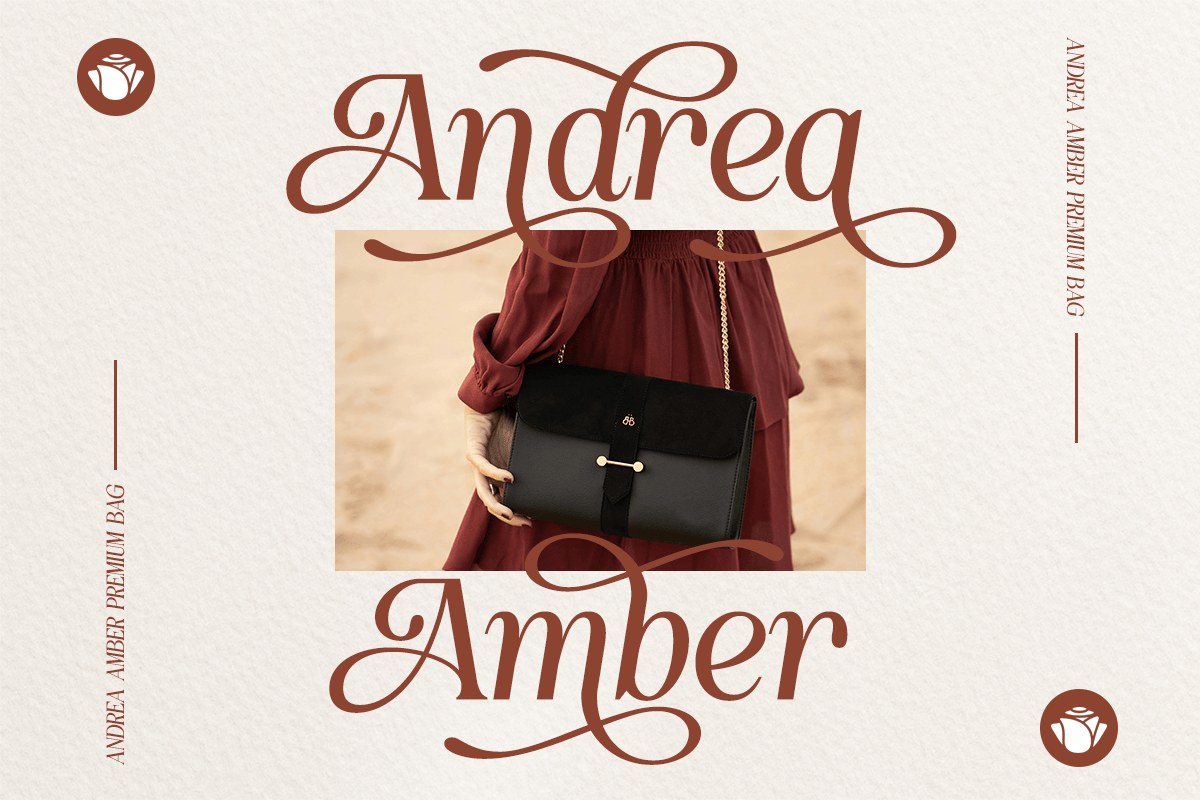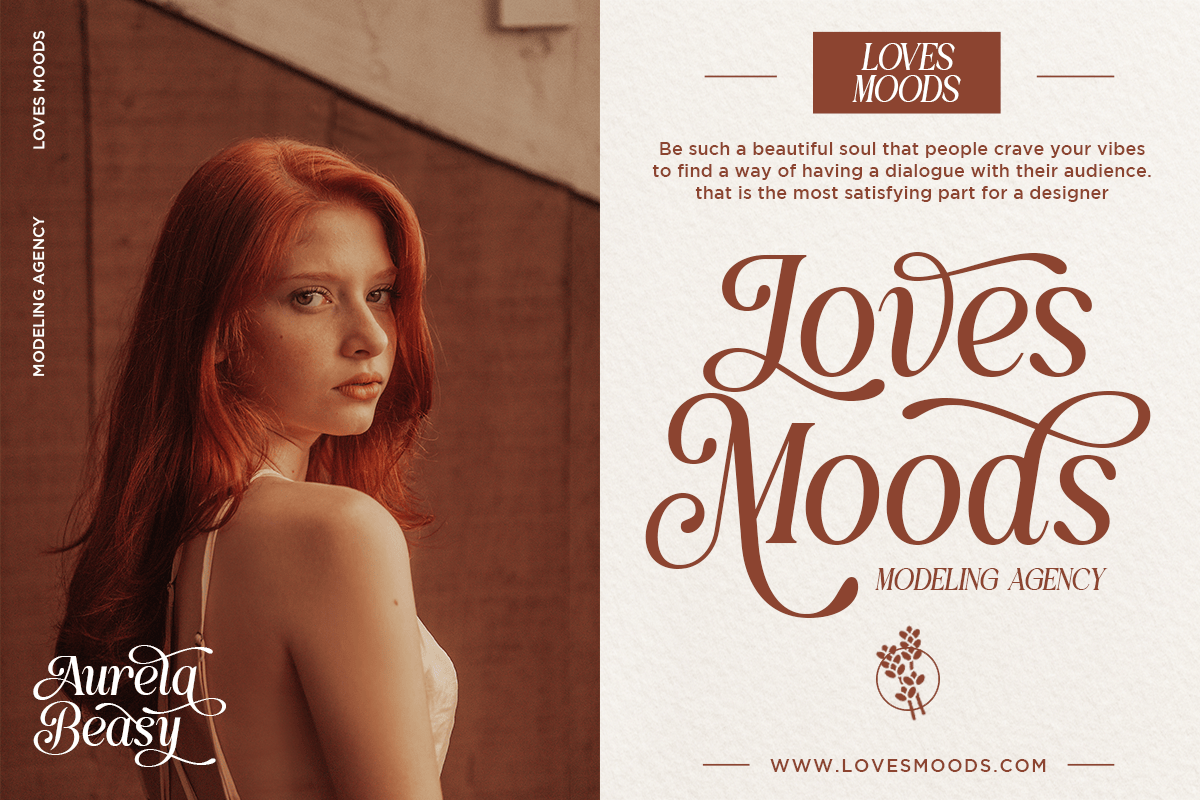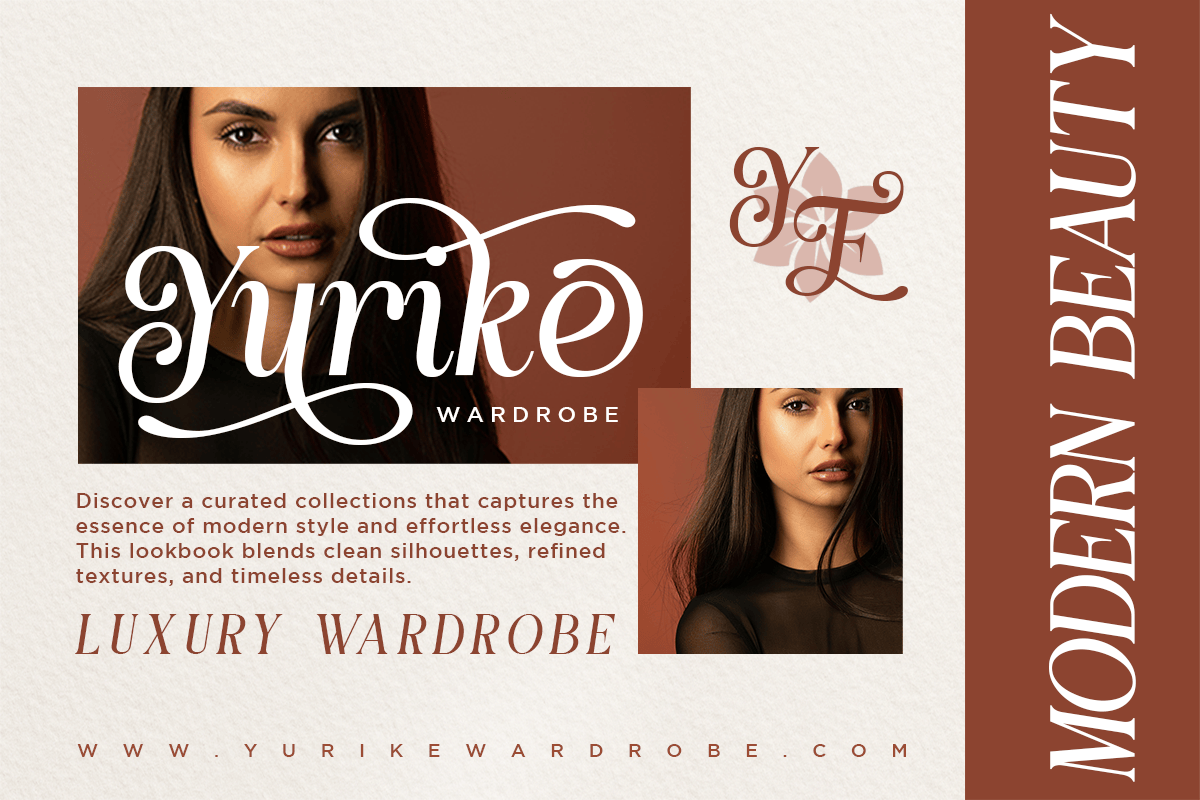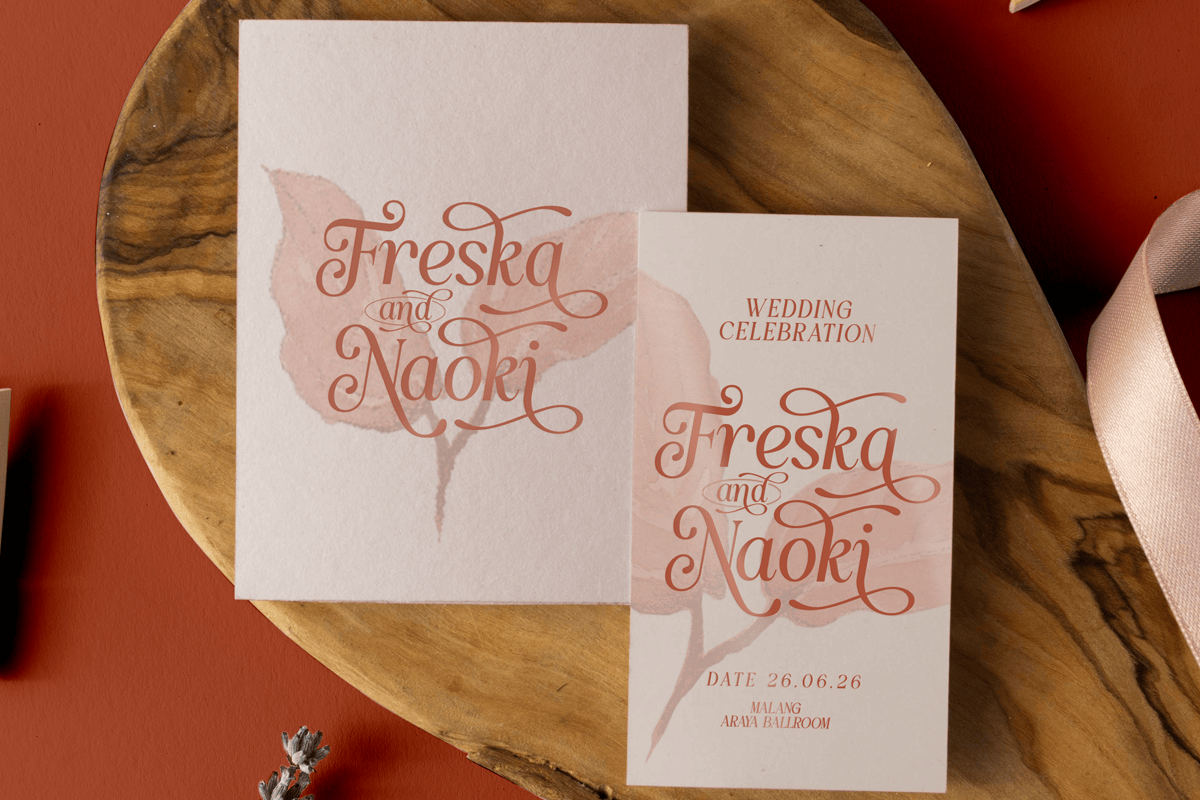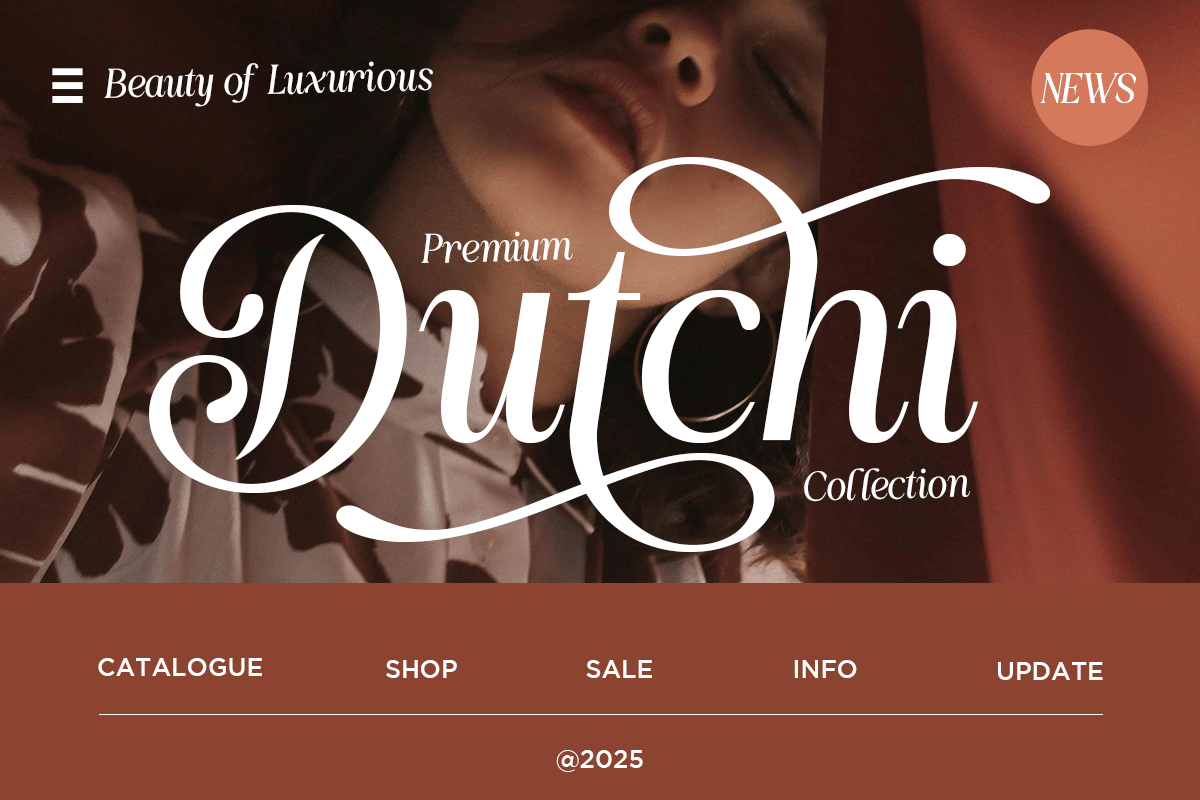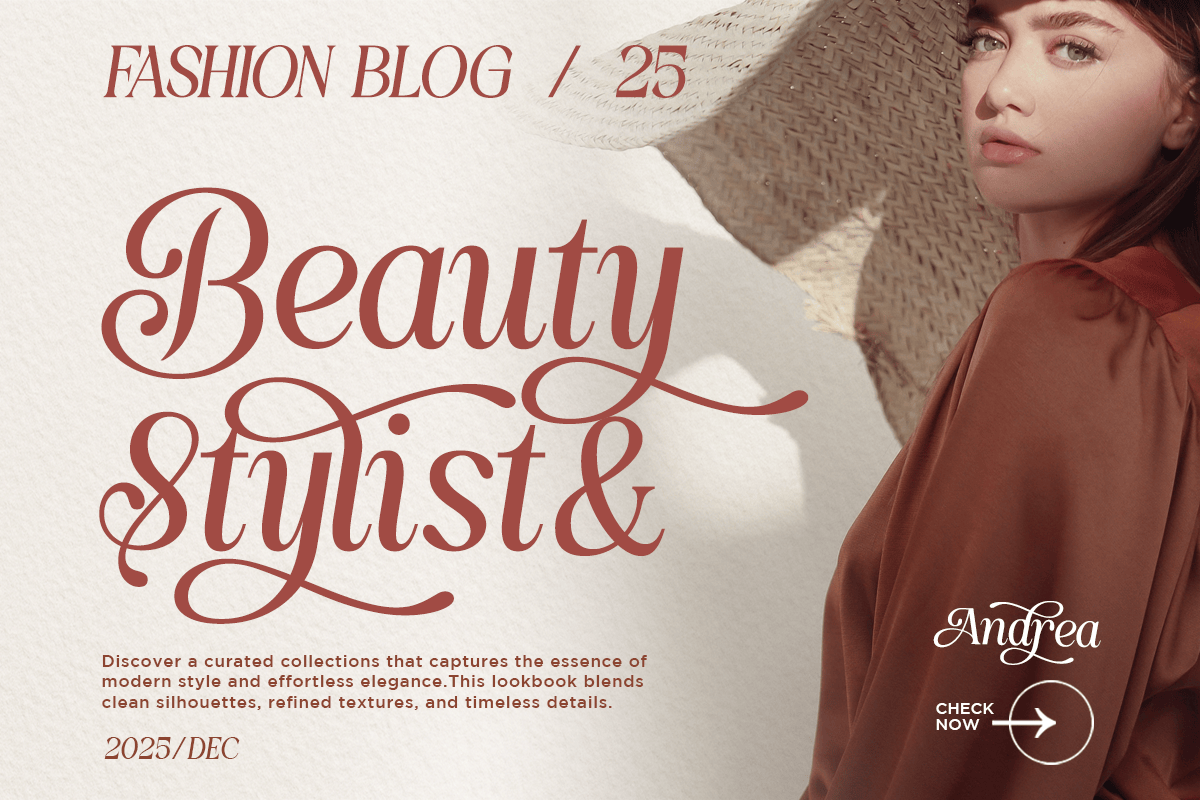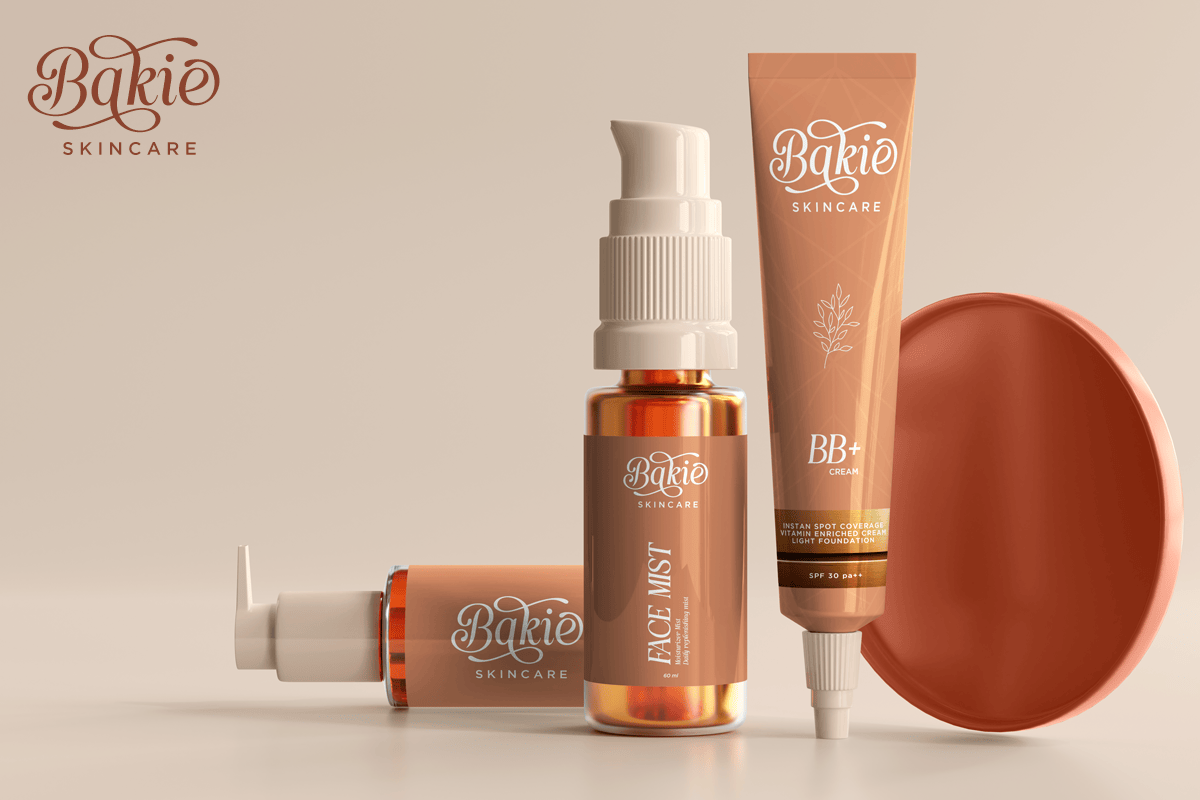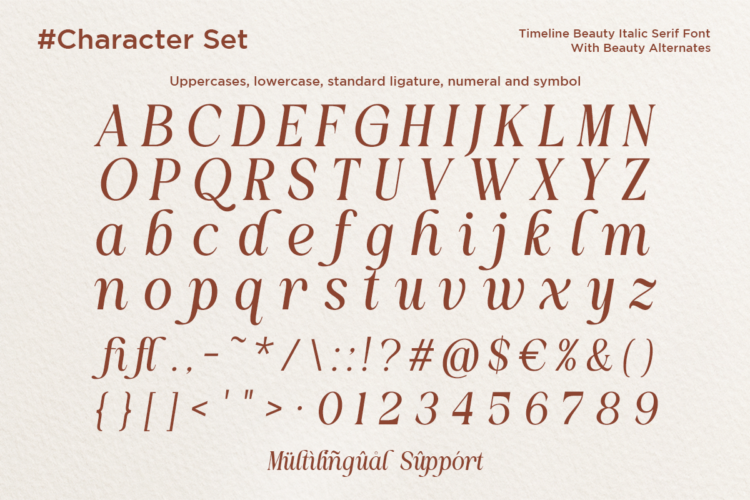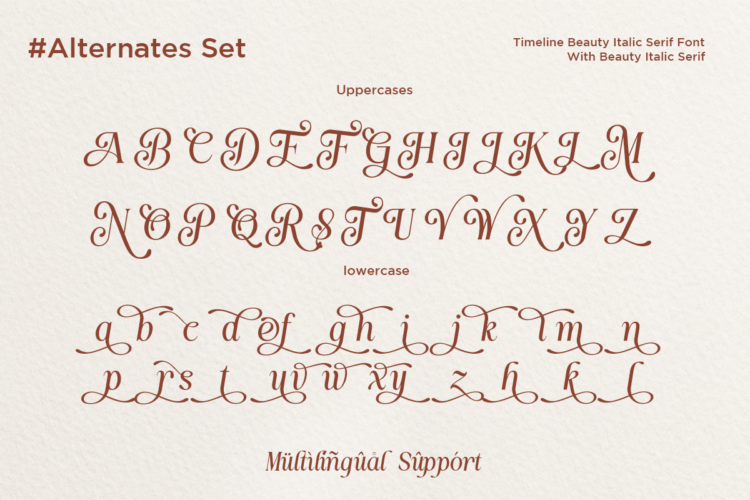
Timeline – Beauty Italic Serif Font
Timeline is a beauty italic serif font designed to express elegance, romance, and timeless sophistication. Featuring graceful curves, refined contrast, and flowing swashes, this typeface is perfect for luxury branding, wedding designs, editorial layouts, fashion magazines, and feminine visual identities. Timeline blends classic serif charm with a modern italic rhythm, making it ideal for high-end logos, invitations, packaging, and stylish display typography that demands attention with softness and class.